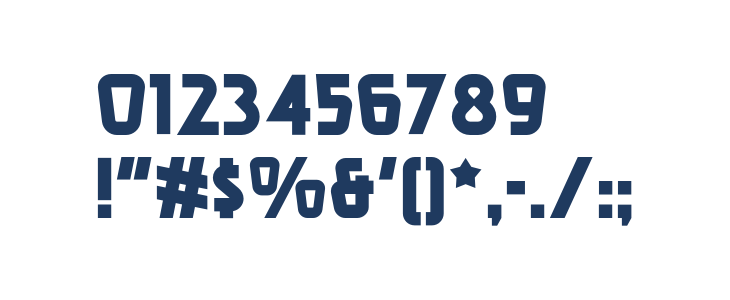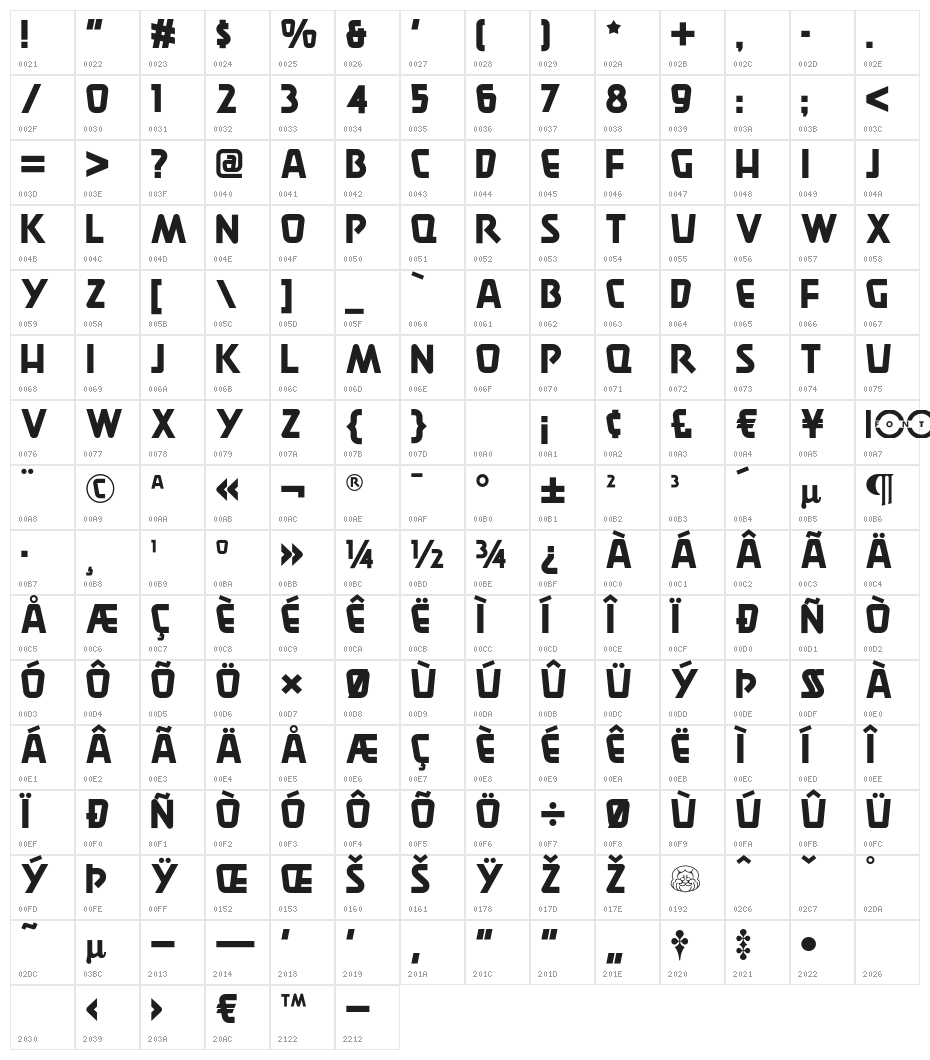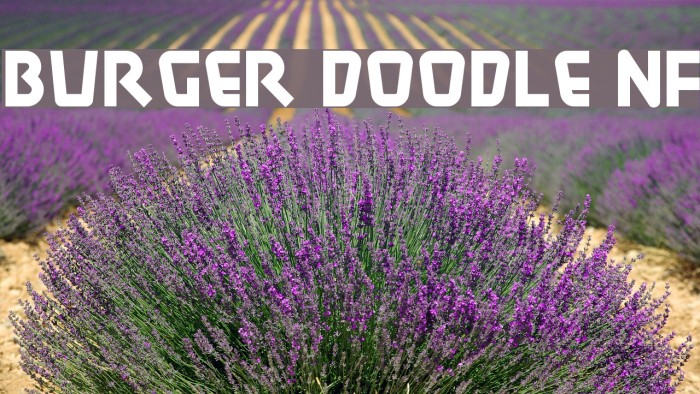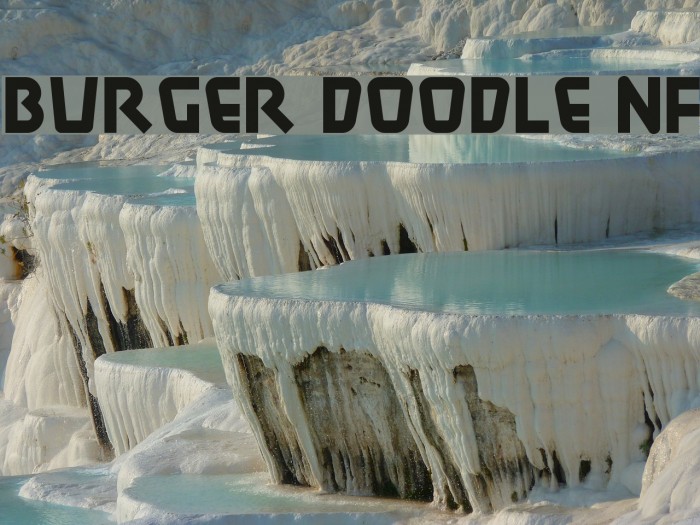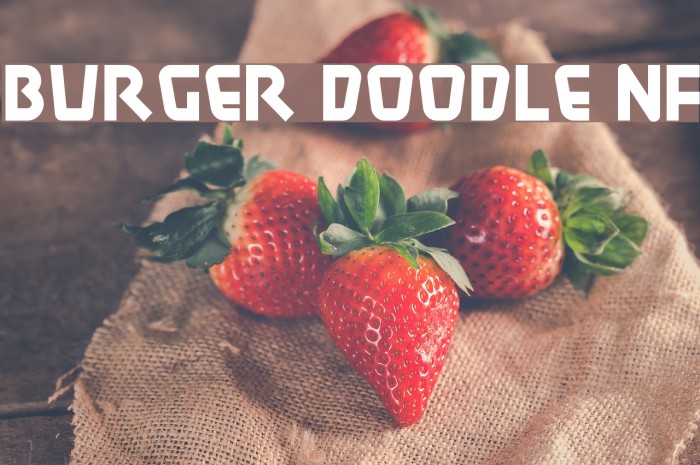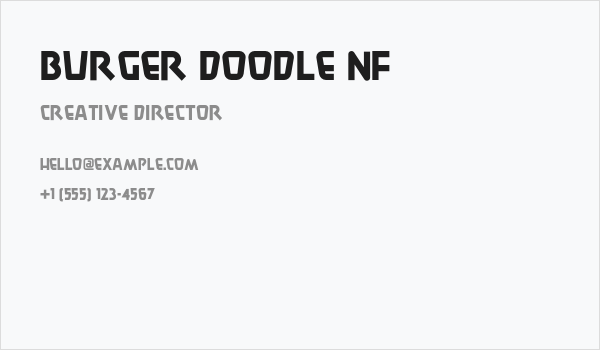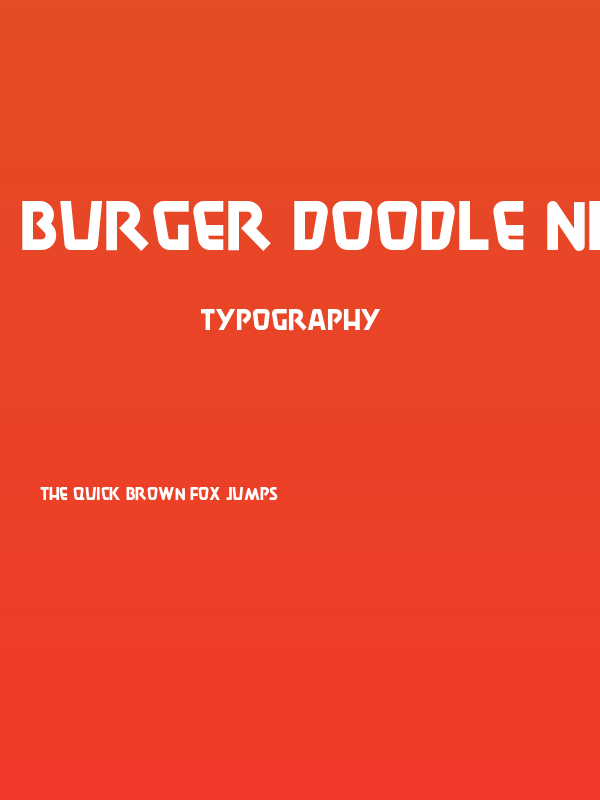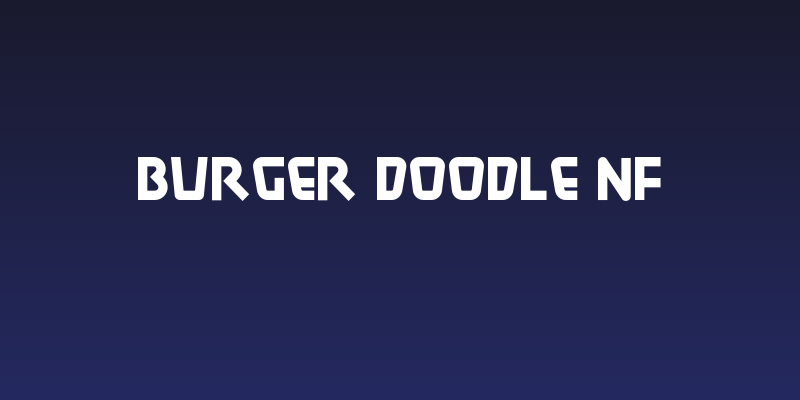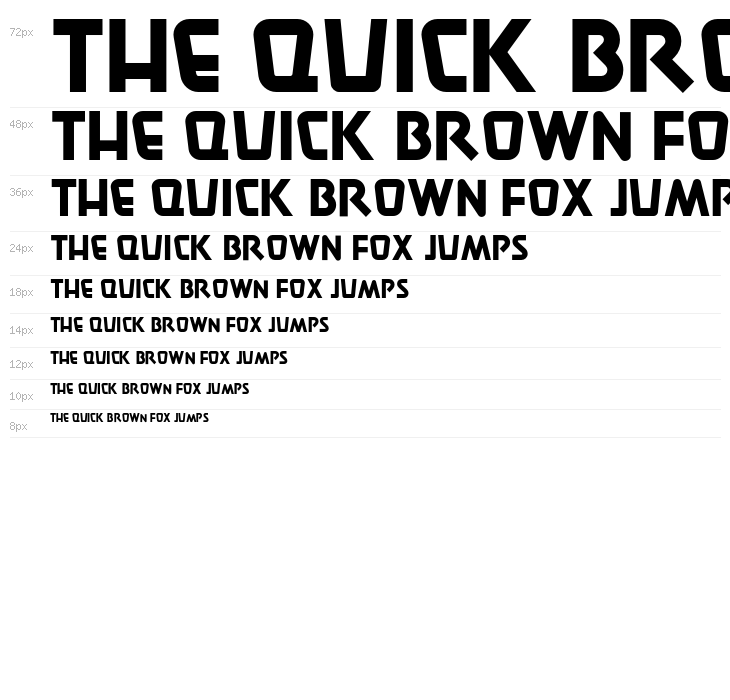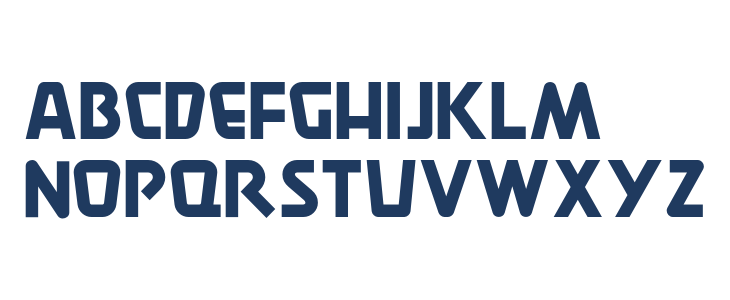
Burger Doodle NF Font
Burger Doodle NF Description
This font features a bold, geometric style with a playful and modern twist. The characters are blocky and angular, with a distinct stencil-like appearance that adds a unique flair. The uppercase and lowercase letters maintain a consistent weight, contributing to a cohesive look. The numbers and special characters share the same boldness, ensuring uniformity across all elements. This font's strong presence makes it ideal for attention-grabbing designs.